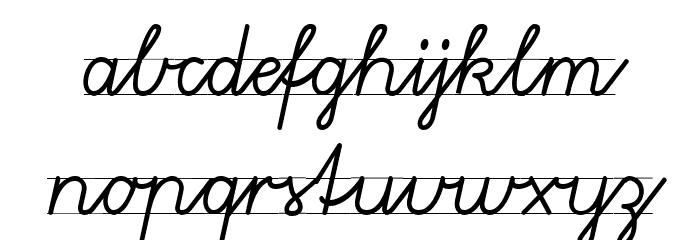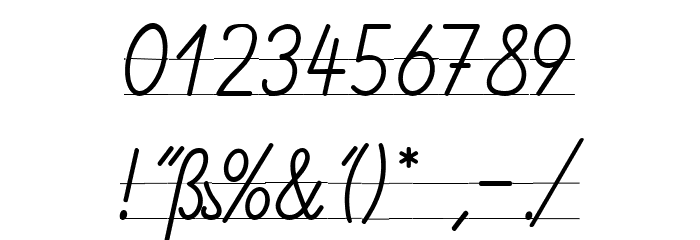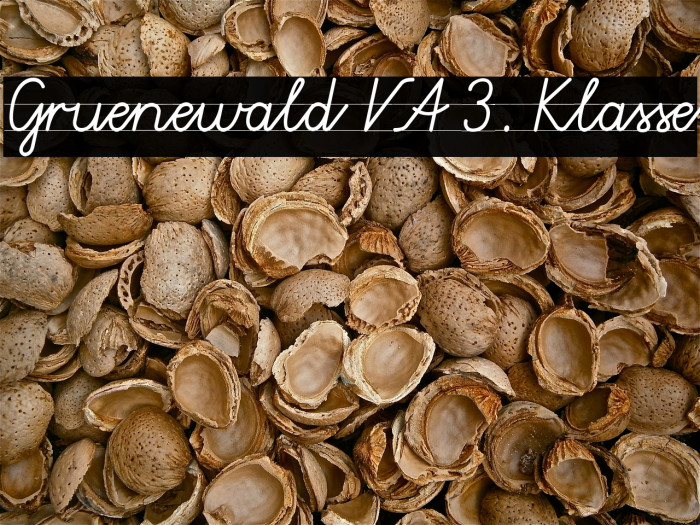
Gruenewald VA 3. Klasse Font
This font is a classic cursive script that emulates traditional handwriting. Each letter is elegantly connected, creating a smooth and continuous flow across words. The uppercase letters are slightly larger and more pronounced, while the lowercase letters maintain a consistent size and style. The numerals are clear and legible, matching the overall cursive aesthetic. Special characters are integrated seamlessly, maintaining the script's fluidity. This font is ideal for projects that require a personal, handwritten touch, such as invitations, greeting cards, or personal branding.
A classic cursive script with elegant, connected letters for a handwritten look.
- Proposed Projects: Ideal for invitations, greeting cards, personal branding, and any project needing a handwritten touch.
- Overall Style: Classic
- Use Case: Logos, Invitations, Greeting Cards